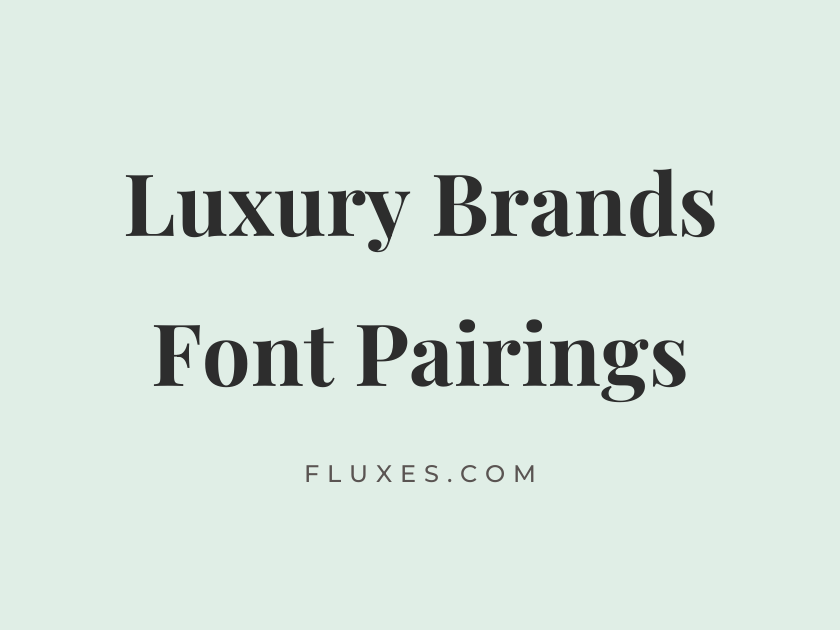
34 Best Font Pairings for Luxury Brands
Luxury branding lives or dies on restraint: the right typefaces communicate quality without shouting about it. The pairings below draw from the classic vocabulary of high-end design, elegant serifs with generous negative space, engraved capitals, and understated sans-serifs, all built from genuinely free Google Fonts so you can put a polished, premium-feeling system into production immediately.
Playfair Display + Lato
This is the classic starting point for luxury font combinations: Playfair Display’s high-contrast strokes read as couture, while Lato’s warm, humanist letterforms keep long paragraphs comfortable to read. It works across fashion, beauty, and hospitality sites alike.
Cormorant Garamond + Montserrat
Cormorant Garamond’s delicate, jewelry-like serifs contrast beautifully against Montserrat’s geometric solidity, giving a skincare or fine-jewelry brand both softness and structure.
Bodoni Moda + Karla
Bodoni Moda’s razor-thin hairlines and dramatic stroke contrast are pure fashion-magazine glamour; Karla’s grounded, humanist forms stop the page from feeling brittle.
Cinzel + EB Garamond
Cinzel’s capitals echo Roman stone inscriptions, an instant shorthand for heritage and permanence, while EB Garamond’s warm oldstyle body text keeps the brand feeling human rather than monumental.
Italiana + Jost
Italiana’s elongated, tapering letters were built for perfume and couture logotypes; Jost’s geometric simplicity gives the supporting copy a calm, modern counterweight.
Prata + Raleway
Prata carries a Didone-adjacent elegance without feeling brittle, making it a strong fit for boutique hotels; Raleway’s light weights and refined letterforms sit comfortably underneath it.
DM Serif Display + Nunito Sans
Both fonts share generous, rounded proportions from the same design sensibility, so a digital-first luxury brand can pair them and feel cohesive rather than mismatched.
Marcellus + Work Sans
Marcellus is restrained enough to work for real estate and architecture branding, and its calm proportions align neatly with Work Sans’s neutral, unobtrusive body text.
Libre Caslon Display + Source Serif 4
Keeping both fonts in the serif family here gives an editorial luxury brand a literary, old-world credibility, with Libre Caslon Display’s confident headline weight balanced by Source Serif 4’s readable text proportions.
Tenor Sans + Cormorant Garamond
Inverting the usual roles, a clean geometric sans as the headline against a delicate serif body creates a minimalist, gallery-like tone that suits fragrance and jewelry lines.
Fraunces + Karla
Fraunces brings a soft, almost handmade high-contrast quality that feels artisanal rather than corporate, and Karla’s plain-spoken sans keeps the pairing from tipping into whimsy.
Abril Fatface + Jost
Abril Fatface is unapologetically dramatic, ideal for a single striking headline in fashion retail; Jost’s understated geometry gives the eye somewhere calm to rest afterward.
Spectral + Raleway
Spectral’s transitional serif shapes feel literary and considered, a good match for boutique hospitality copy, and Raleway’s light weights keep the overall palette airy.
Gilda Display + Mulish
Gilda Display’s compact, polished serif forms suit leather goods and accessory branding, while Mulish’s neutral grotesque keeps product descriptions easy to scan.
Cardo + Josefin Sans
Tips for pairing fonts in luxury branding
Limit most systems to one display serif and one clean sans or serif for body text; luxury branding rewards restraint over variety.
Watch x-heights and letter spacing closely: an ornate display font needs a body font with enough breathing room to stay legible at small sizes.
When in doubt, borrow both fonts from the same type family, as with DM Serif Display and DM Sans, to guarantee proportional harmony without extra testing.